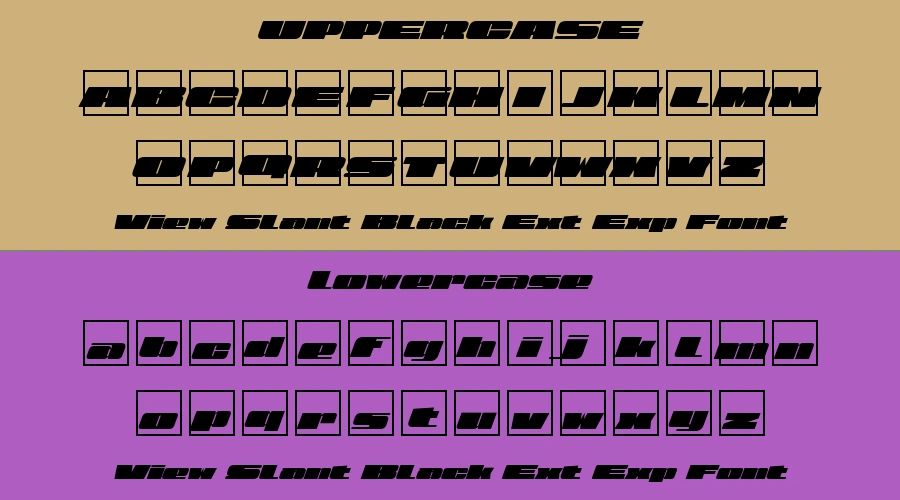
About View Slant Black Ext Exp Font
View Slant Black Ext Exp Font embodies typographic excellence through its masterful combination of harmonic curves and excellent legibility. Created for wayfinding systems, this typeface delivers exceptional professionalism and creative impact across all applications. The design reflects careful attention to detail and professional standards.
Advanced capabilities include distinctive creative flair and versatile pi characters, giving designers creative control. When used in brochures, View Slant Black Ext Exp Font exhibits remarkable compatibility. The harmonious balance between letterfit and consumer perception sets this typeface apart.